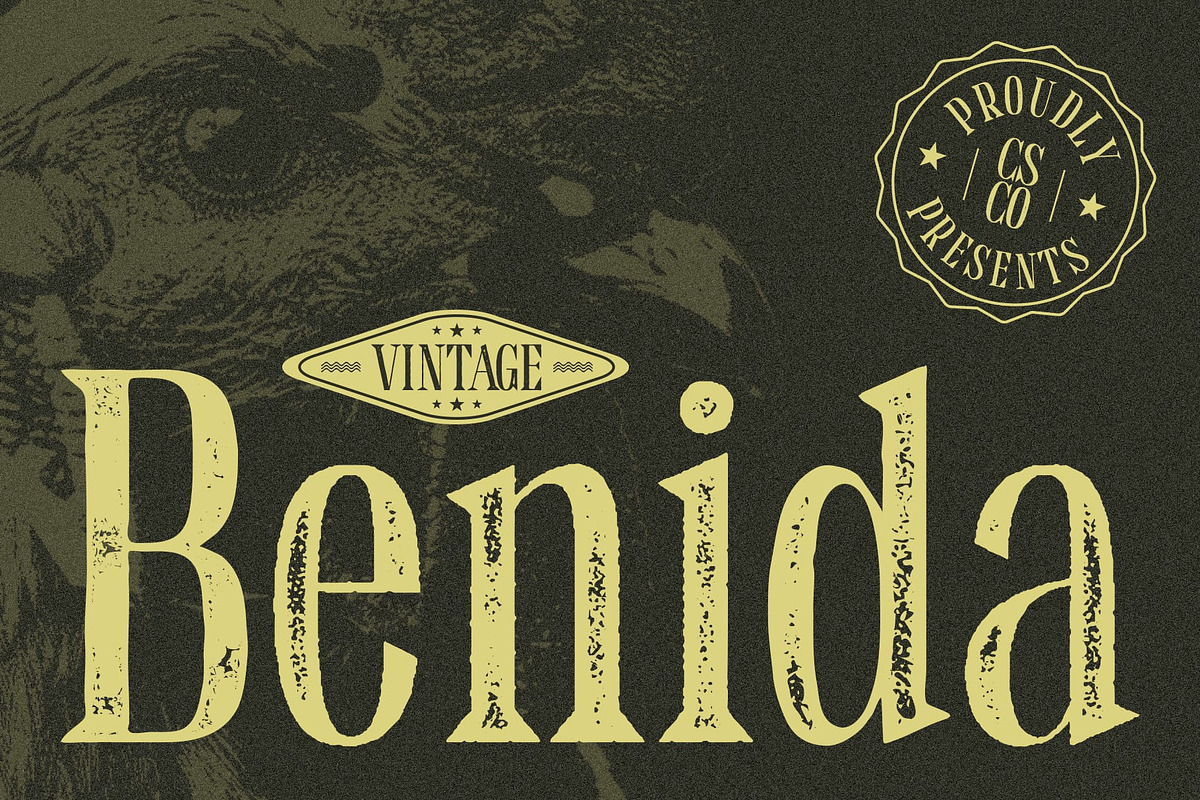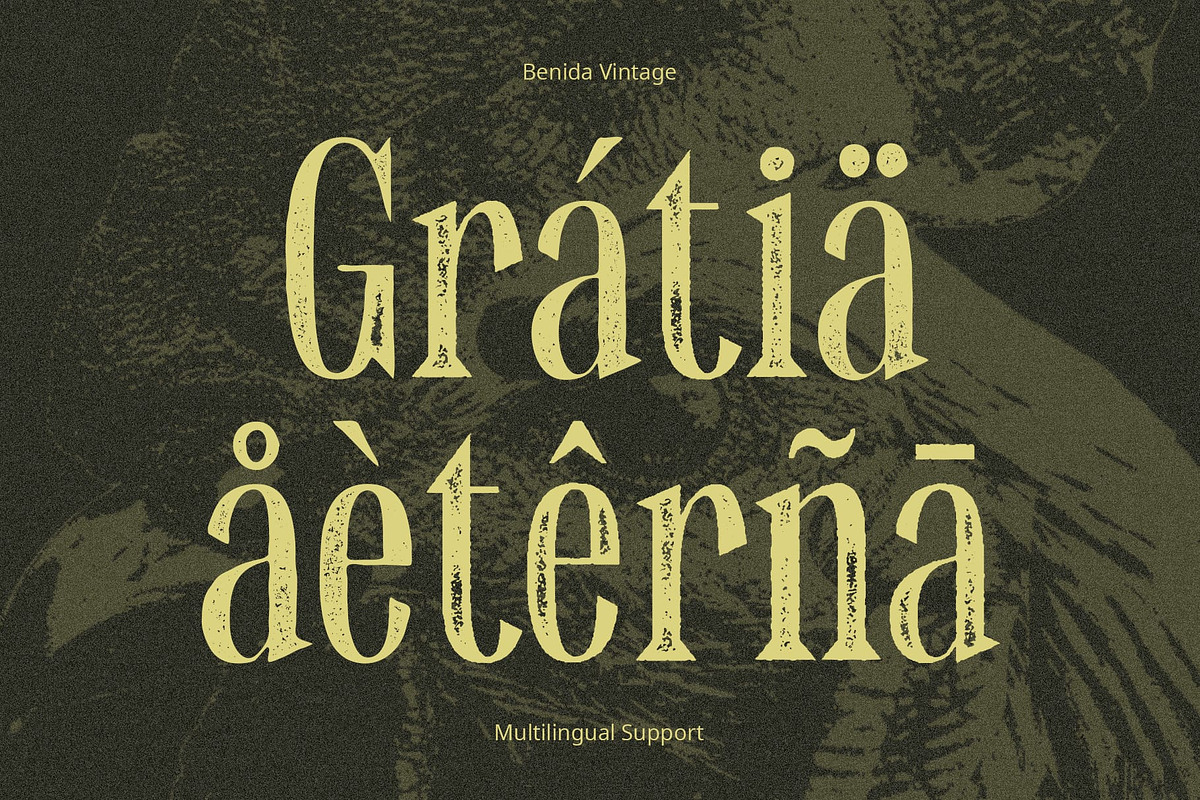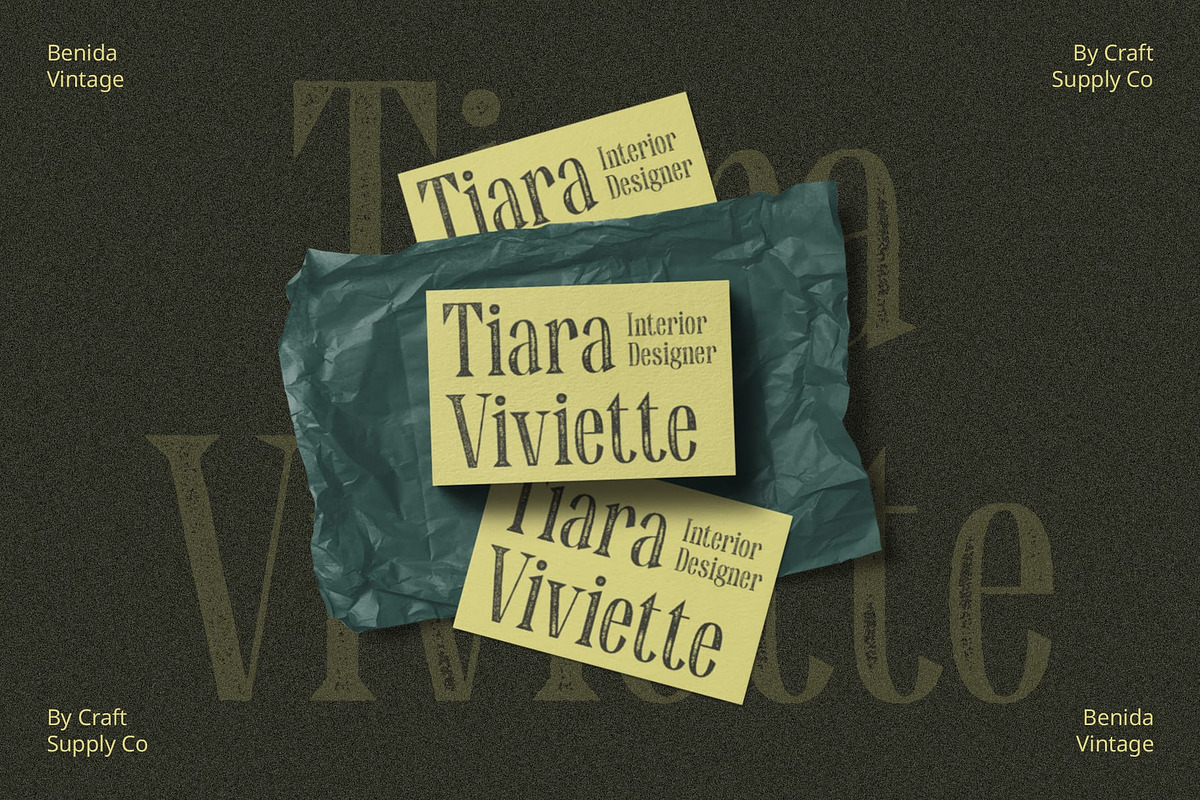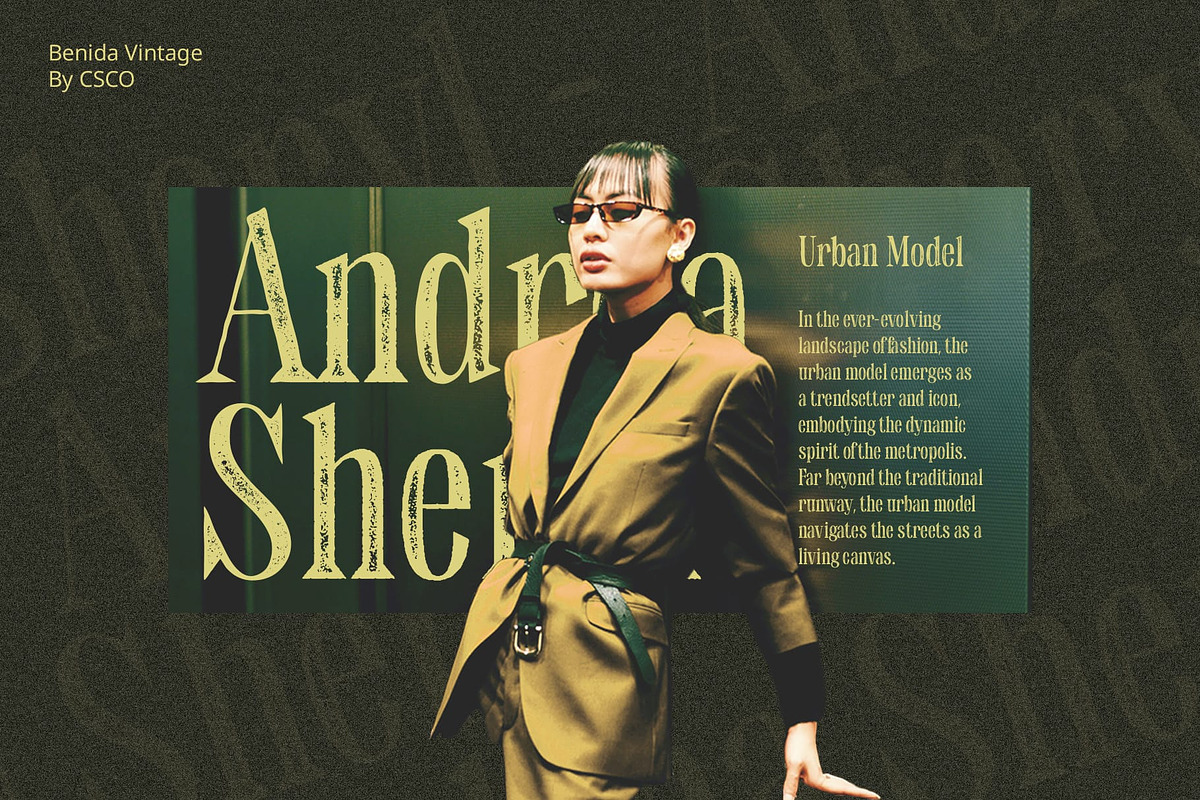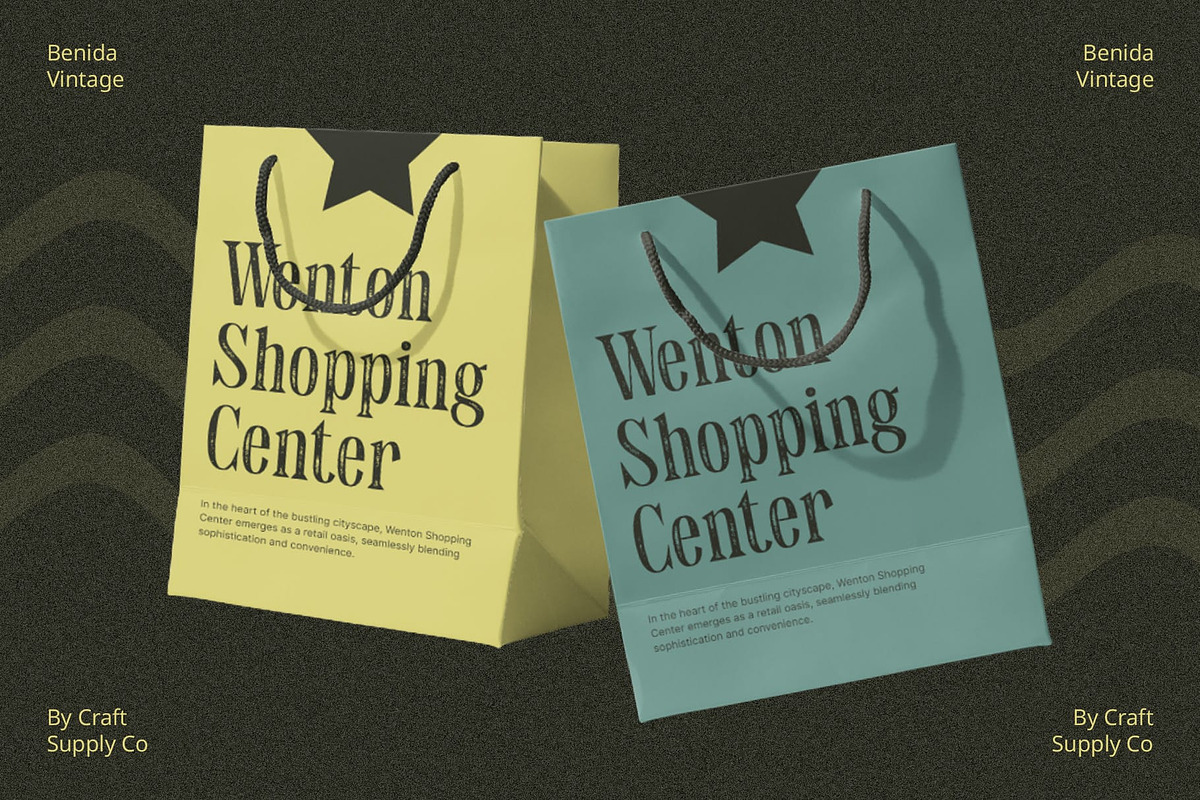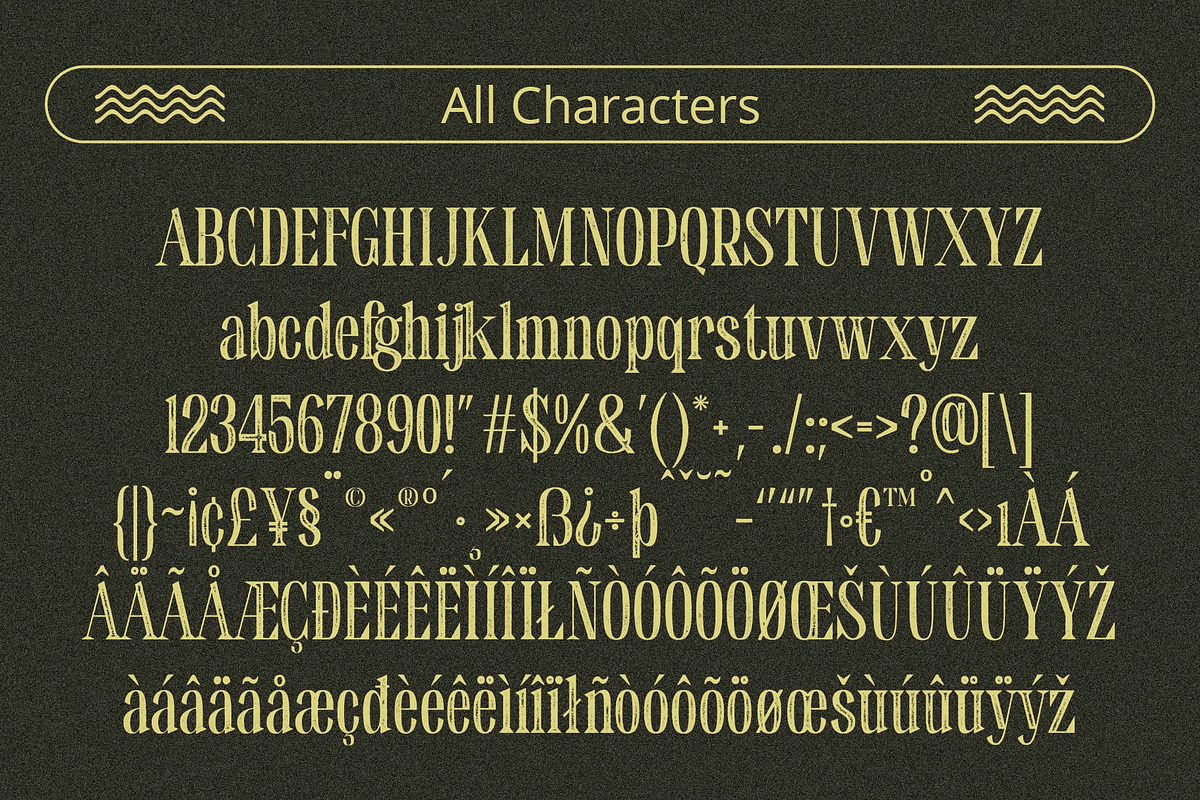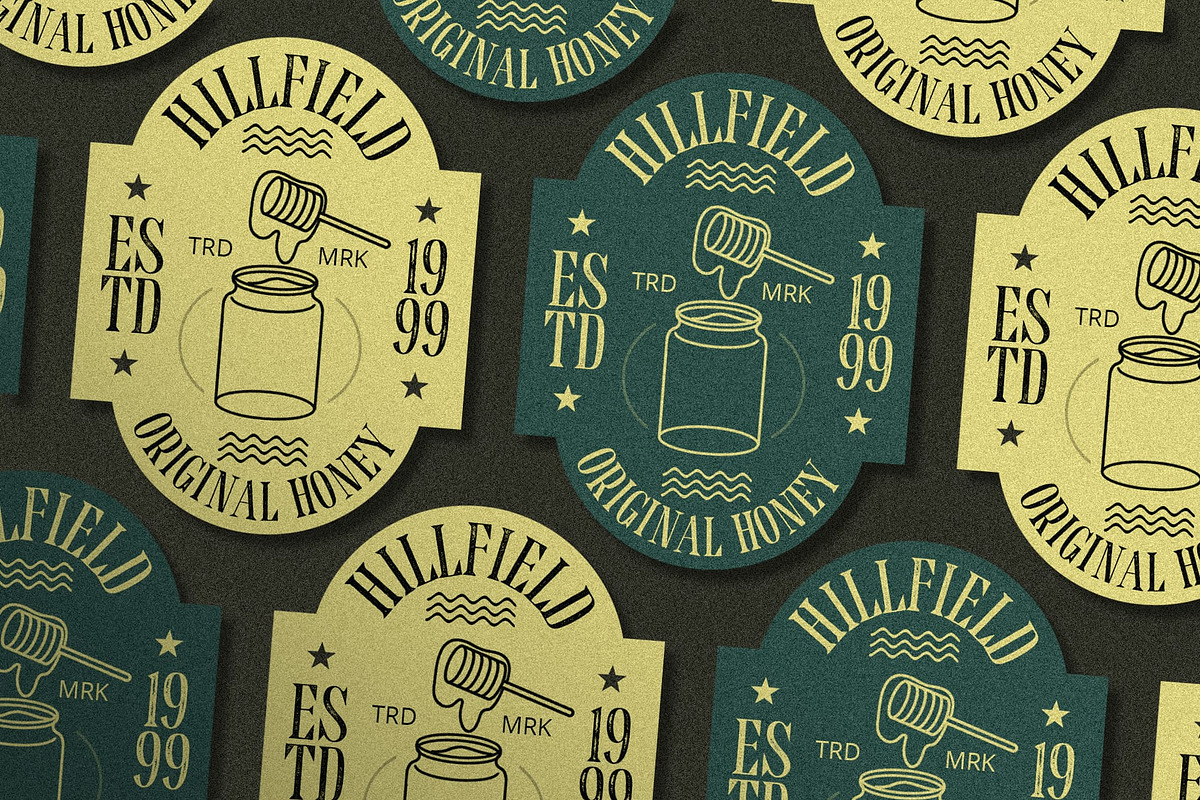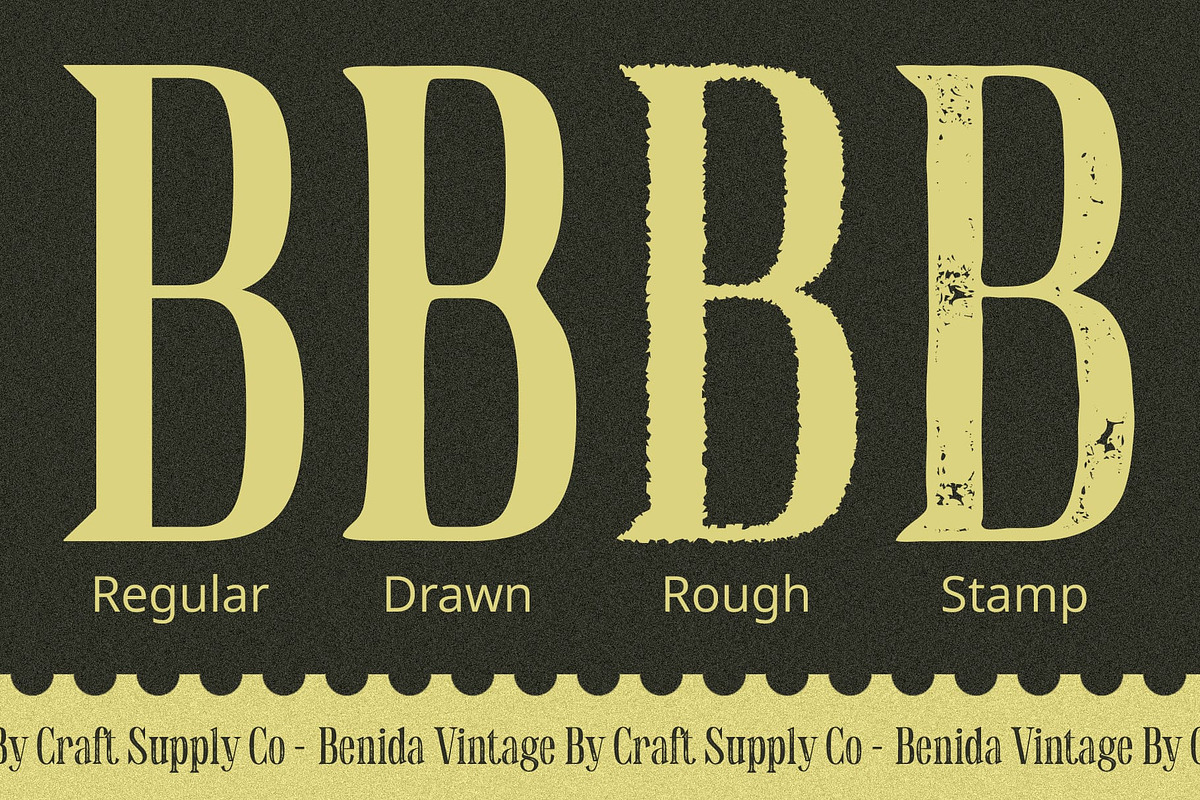
Benida Vintage
Benida Vintage: A Condensed Serif Revival
An Introduction to Benida Vintage Step into the world of Benida Vintage, a condensed serif font that breathes new life into vintage aesthetics, offering a blend of elegance display and nostalgia.
Condensed Elegance Benida Vintage stands out with its condensed form, presenting a unique blend of sophistication and efficiency. Each character is meticulously crafted to capture attention and evoke a sense of refined style.
Vintage Stamp Rough: A Touch of Nostalgia Embrace the charm of vintage with Benida’s stamp rough effect, adding a touch of nostalgia to your projects. The rough edges and aged appearance infuse character and authenticity into every letter.
Ideal for Display Vintage This font is tailor-made for vintage displays, where condensed serifs and vintage stamp rough effects harmonize to create eye-catching headlines, signage, and branding materials that exude a timeless charm.
Sophistication Meets Vintage Appeal This font is more than a font; it’s a journey through time. The condensed serifs and vintage stamp rough effects collaborate to revive the essence of bygone eras, making every design project a testament to classic elegance and enduring style. Immerse your designs in the refined, vintage allure of Benida.
What you get : Benida Regular Benida Drawn Benida Rough Benida Stamp